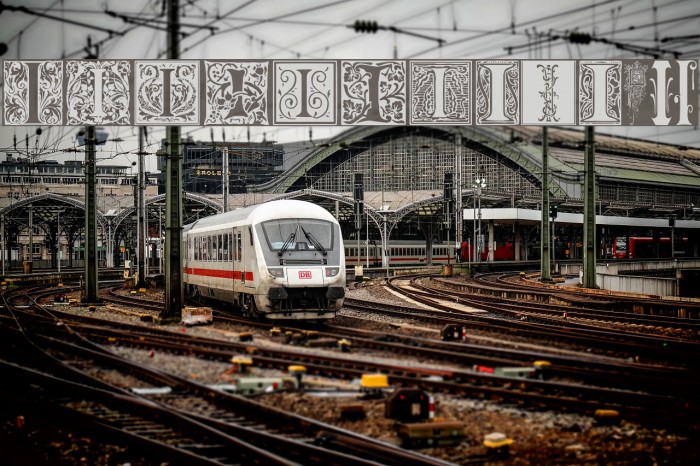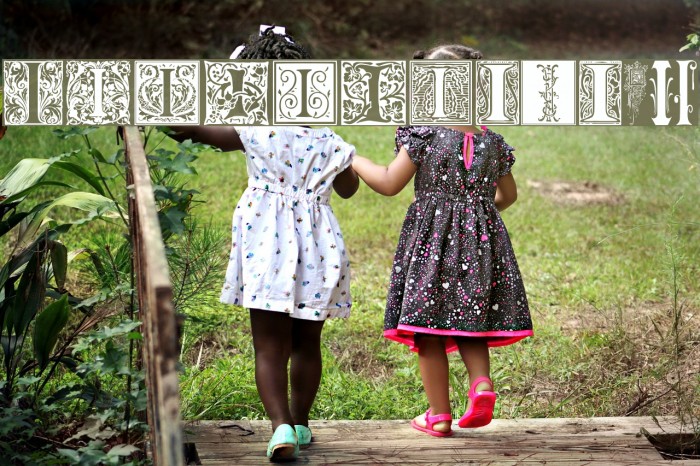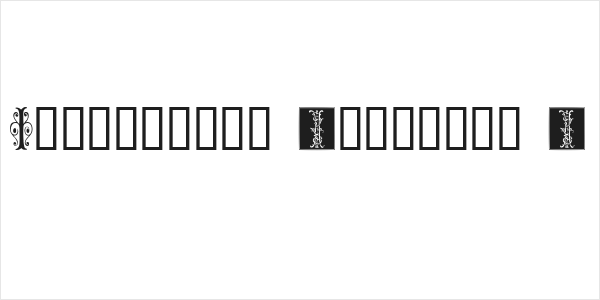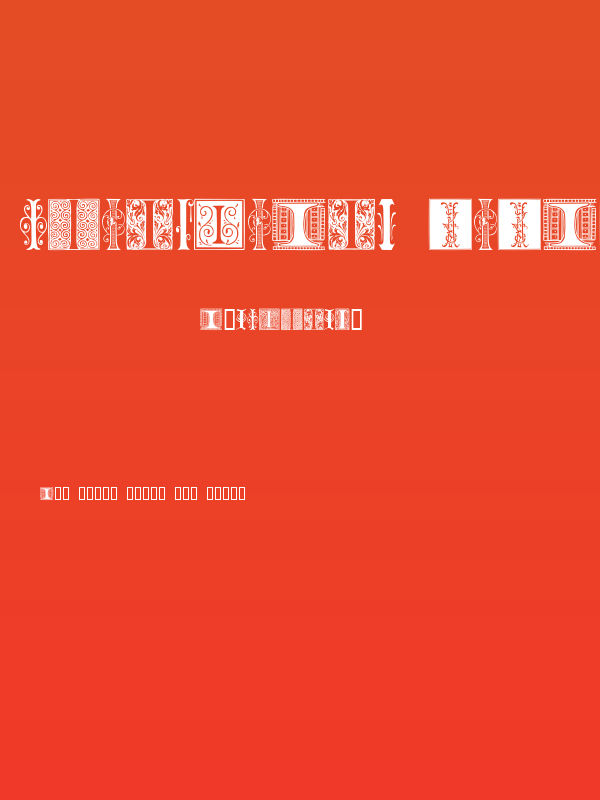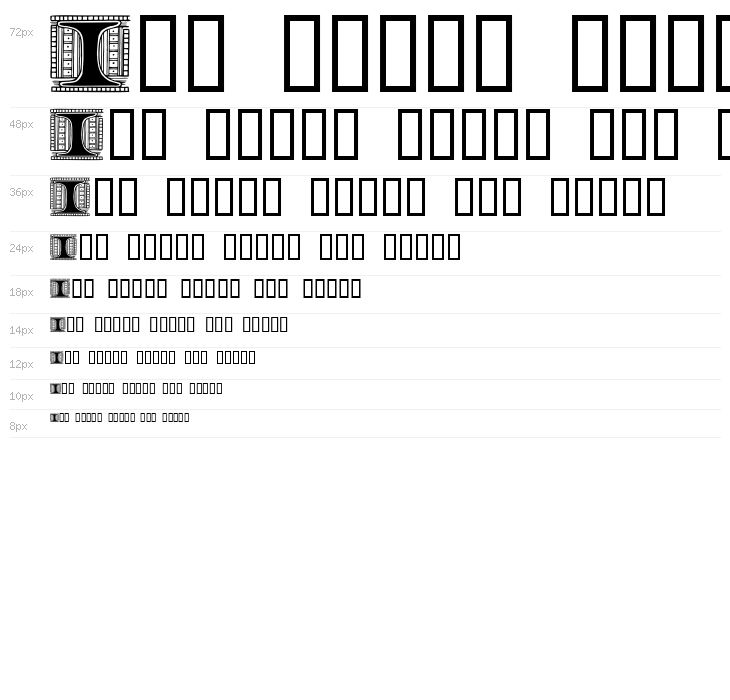
Ornamental Initials I Font
Ornamental Initials I Description
This font is a highly decorative and ornate style, featuring intricate designs and embellishments within each letter. The uppercase letters are framed with elaborate patterns, including floral motifs, geometric shapes, and swirling lines, creating a sense of elegance and sophistication. Each character is unique, showcasing a blend of artistic elements that make it stand out. The font is reminiscent of historical manuscripts and illuminated texts, offering a vintage and classical appeal. It is ideal for projects that require a touch of luxury and grandeur, such as invitations, certificates, or branding that seeks to convey a sense of tradition and refinement.
| Overall Style | Vintage, Decorative |
| Use Case | Headlines, Decorative text, Invitations |
| Proposed Projects | Ideal for wedding invitations, luxury branding, historical themed projects, and decorative headings. |